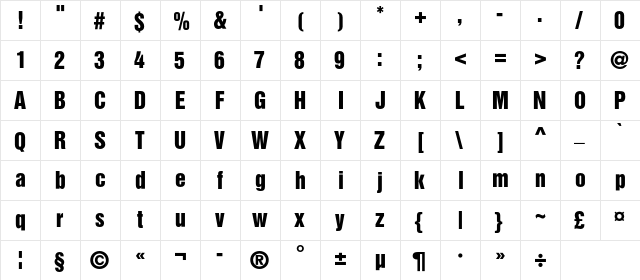
BastionKontrast-Regular Regular
Design Context for BastionKontrast-Regular Typeface
BastionKontrast-Regular offers clean, dependable letterforms without strong stylistic allegiance, making it a practical choice for designers who need flexibility.